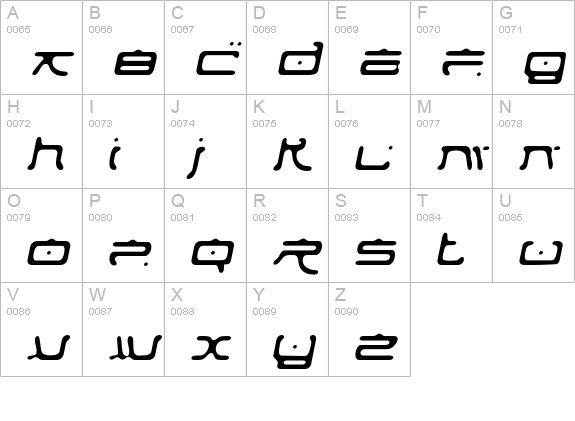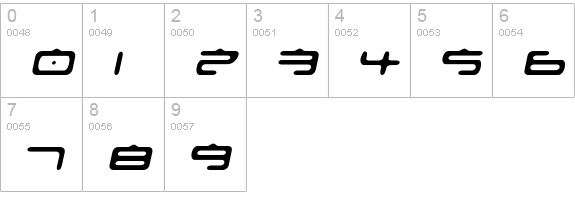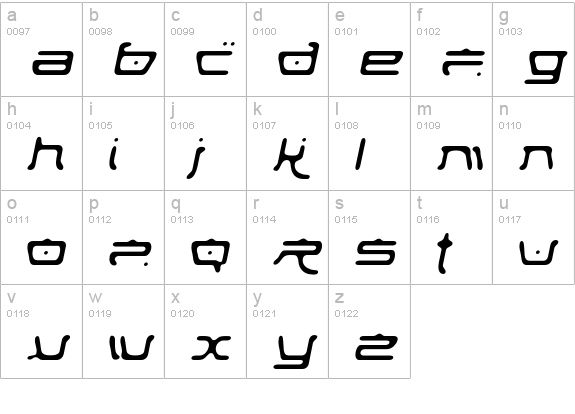
Fufanu-Italic is a distinctive, italic variant in the Fufanu typeface family \xE2\x80\x94 well suited to design and typography projects.
Fufanu-Italic is a sleek and elegant font that exudes sophistication and modernity. Its stylish cursive design adds a touch of flair to any project, making it perfect for branding, logos, invitations, and more. The italicized characters flow effortlessly, creating a sense of movement and dynamism on the page. The best part? Fufanu-Italic is completely free to download at FontsMarket.com. This means you can easily access this stunning font without any cost, allowing you to elevate your designs without breaking the bank. Whether you're a professional designer or a hobbyist looking to add some pizzazz to your creations, Fufanu-Italic is the perfect choice. With its unique blend of sophistication and versatility, Fufanu-Italic is sure to make a statement in any project. Download it for free today and unleash your creativity with this eye-catching font.